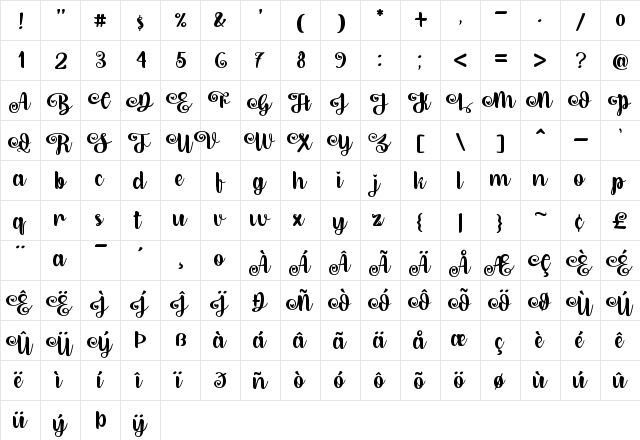
Dirly Belly Regular
| Designer | Virgiawan Listanto |
Design Context for Dirly Belly Typeface
Dirly Belly is a composed and adaptable typeface that performs quietly and consistently across a wide range of design contexts.